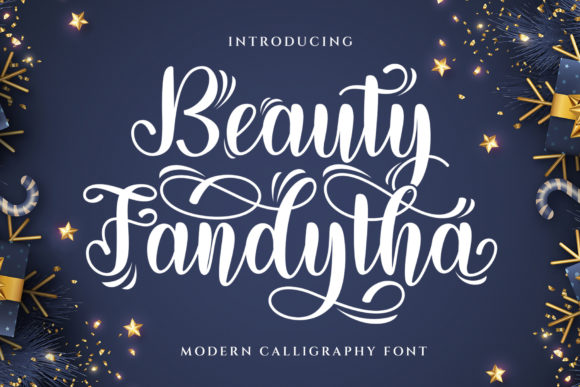
Introducing the captivating Beauty Fandytha Font, a romantic and stylized display font designed by Graphicxell. With its beautiful scripted elements, this font is the perfect choice for anyone looking to add a touch of elegance and sophistication to their designs.
Are you planning a dreamy wedding? Look no further! Beauty Fandytha Font is the ultimate font for wedding envelopes, invitations, and all your wedding stationery needs. Its graceful curves and intricate details will leave a lasting impression on your guests, setting the tone for a truly memorable event.
But that's not all – this versatile font is a must-have for any creative project. Whether you're designing product packaging, crafting beautiful quotes, creating eye-catching product designs, or designing labels, Beauty Fandytha Font will elevate your creations to new heights.
With its PUA encoding, accessing the available glyphs and swashes is a breeze. You'll have endless possibilities at your fingertips, allowing you to customize and personalize your designs effortlessly. Let your creativity run wild and watch as your projects come to life with the unique charm of Beauty Fandytha Font.
Capture stunning photography and leave a lasting impression with watermarks that exude style and sophistication. Make a statement with trendy t-shirts that showcase your brand's individuality and creativity. Design logos and branding materials that stand out from the crowd, leaving a lasting impression on your target audience.
Why settle for ordinary when you can have extraordinary? Beauty Fandytha Font is the perfect blend of elegance and creativity, offering you a world of possibilities to explore. Its romantic flair and captivating charm will instantly captivate anyone who lays eyes on your designs.